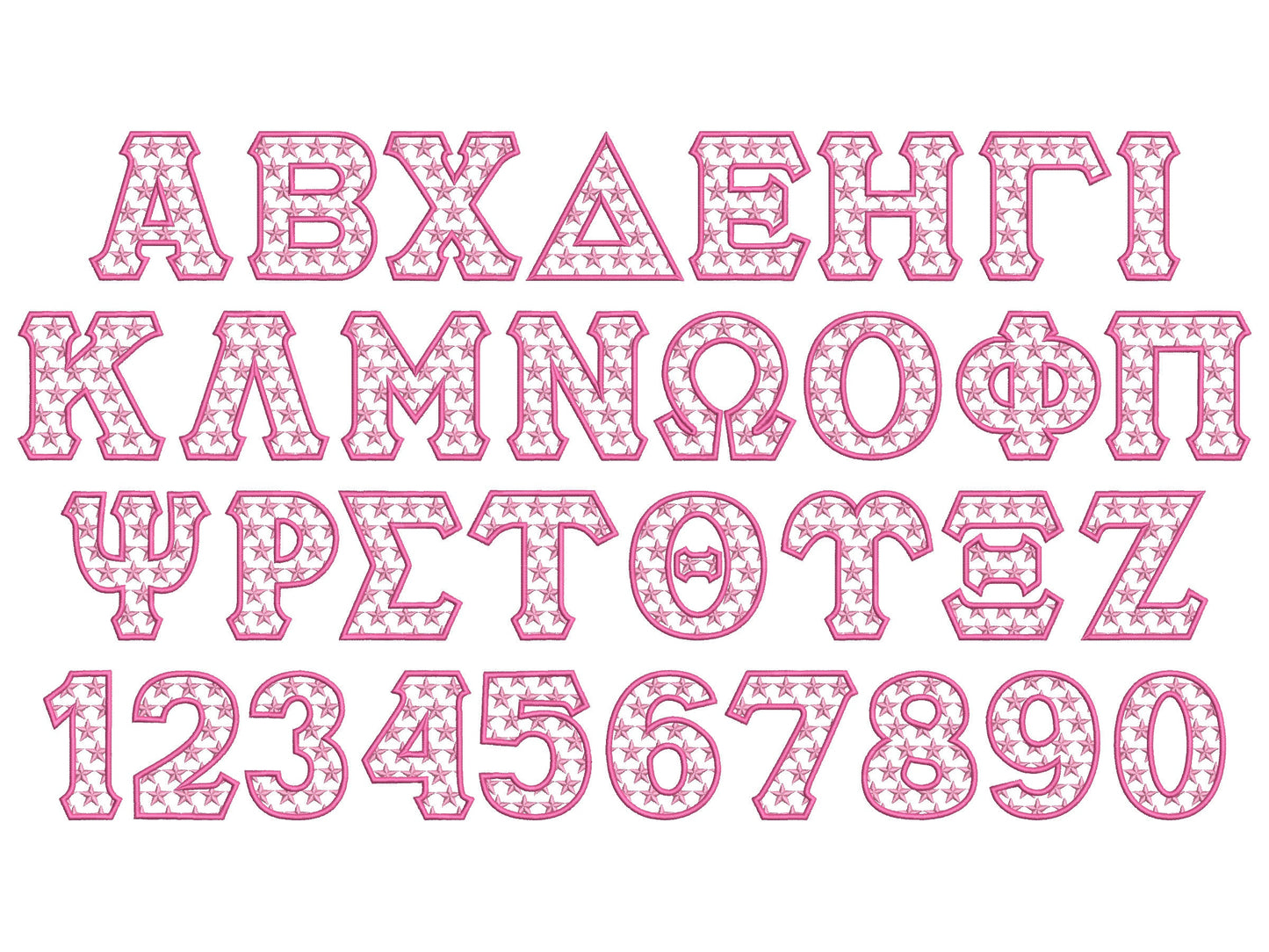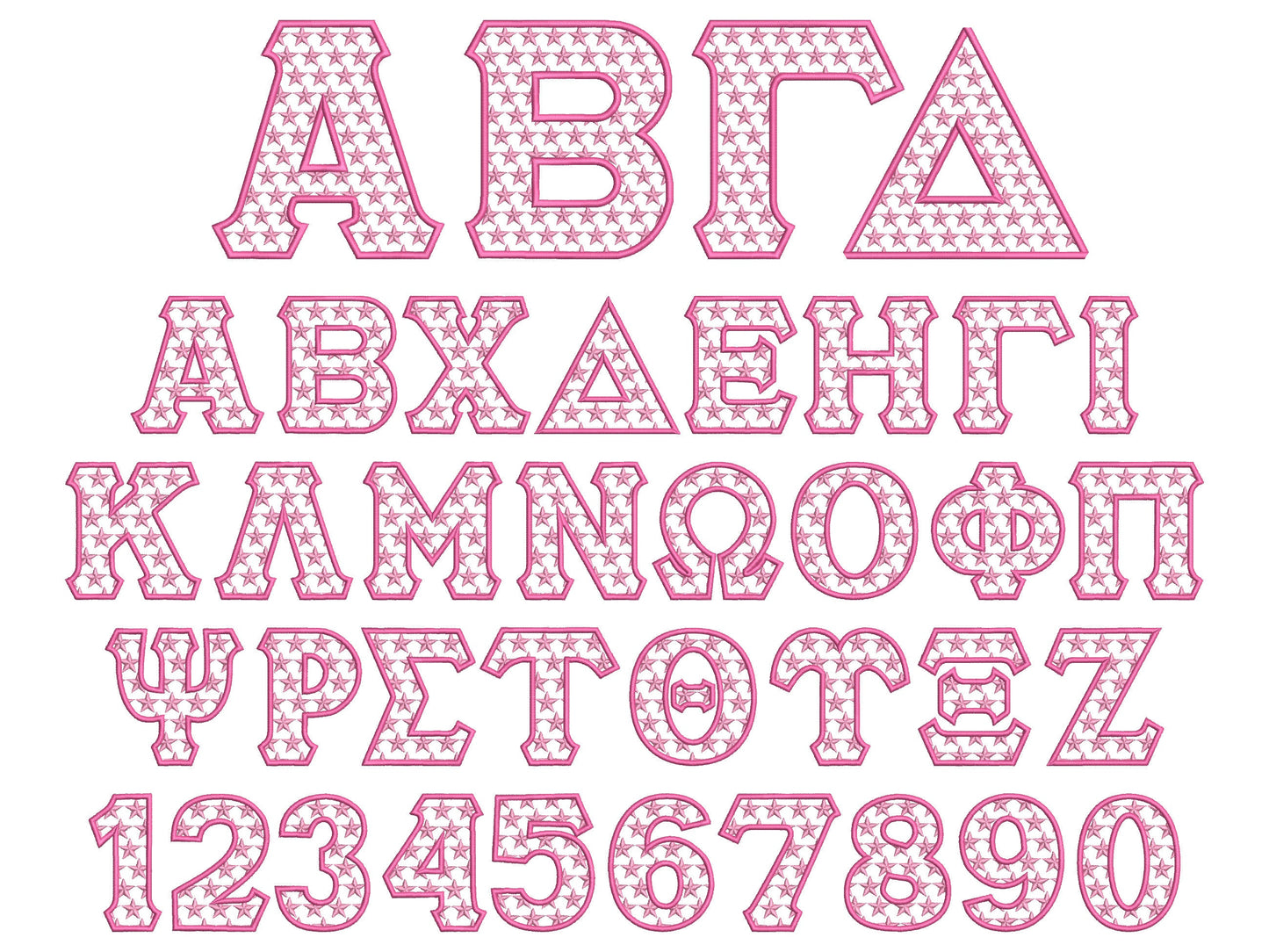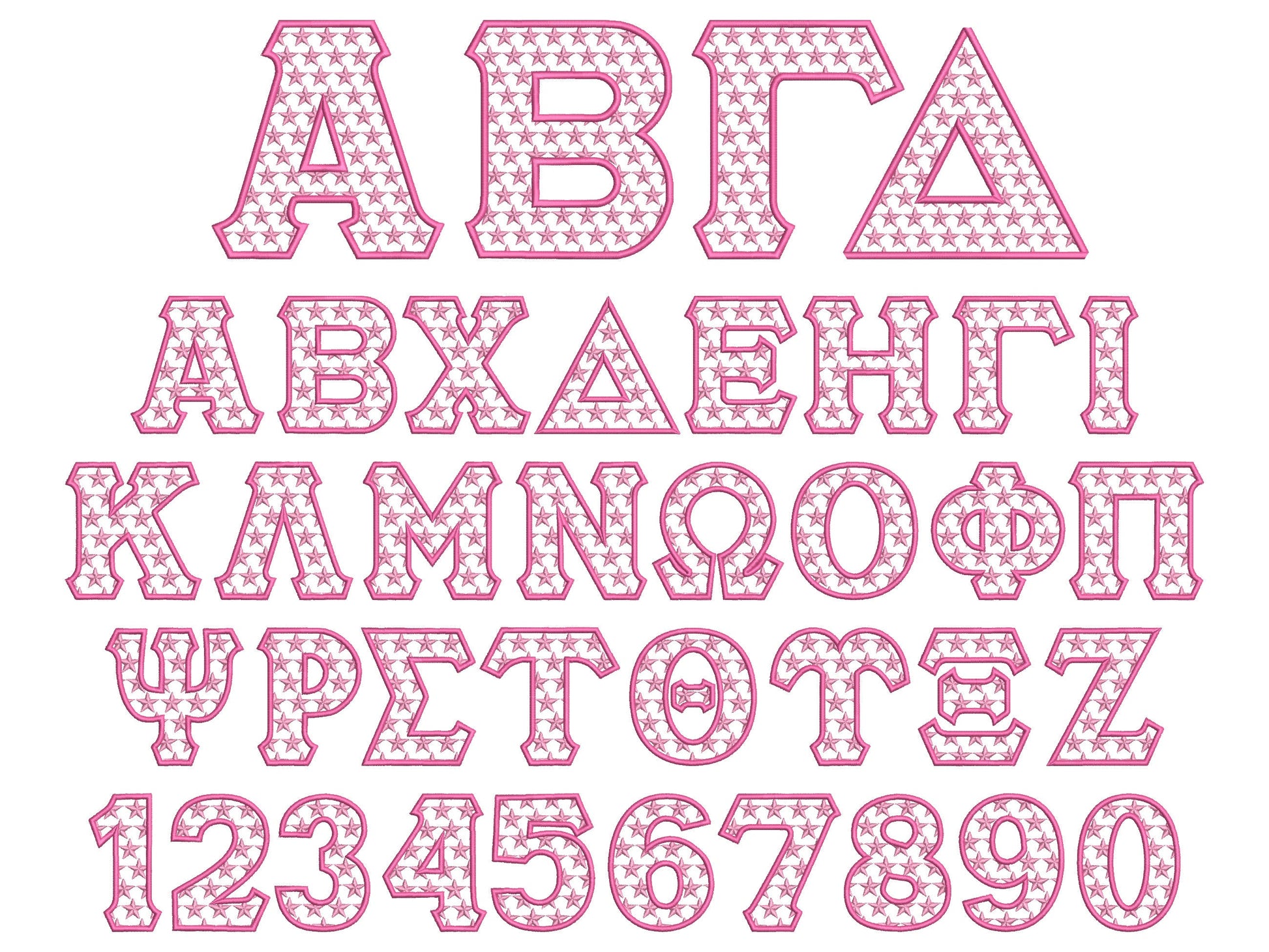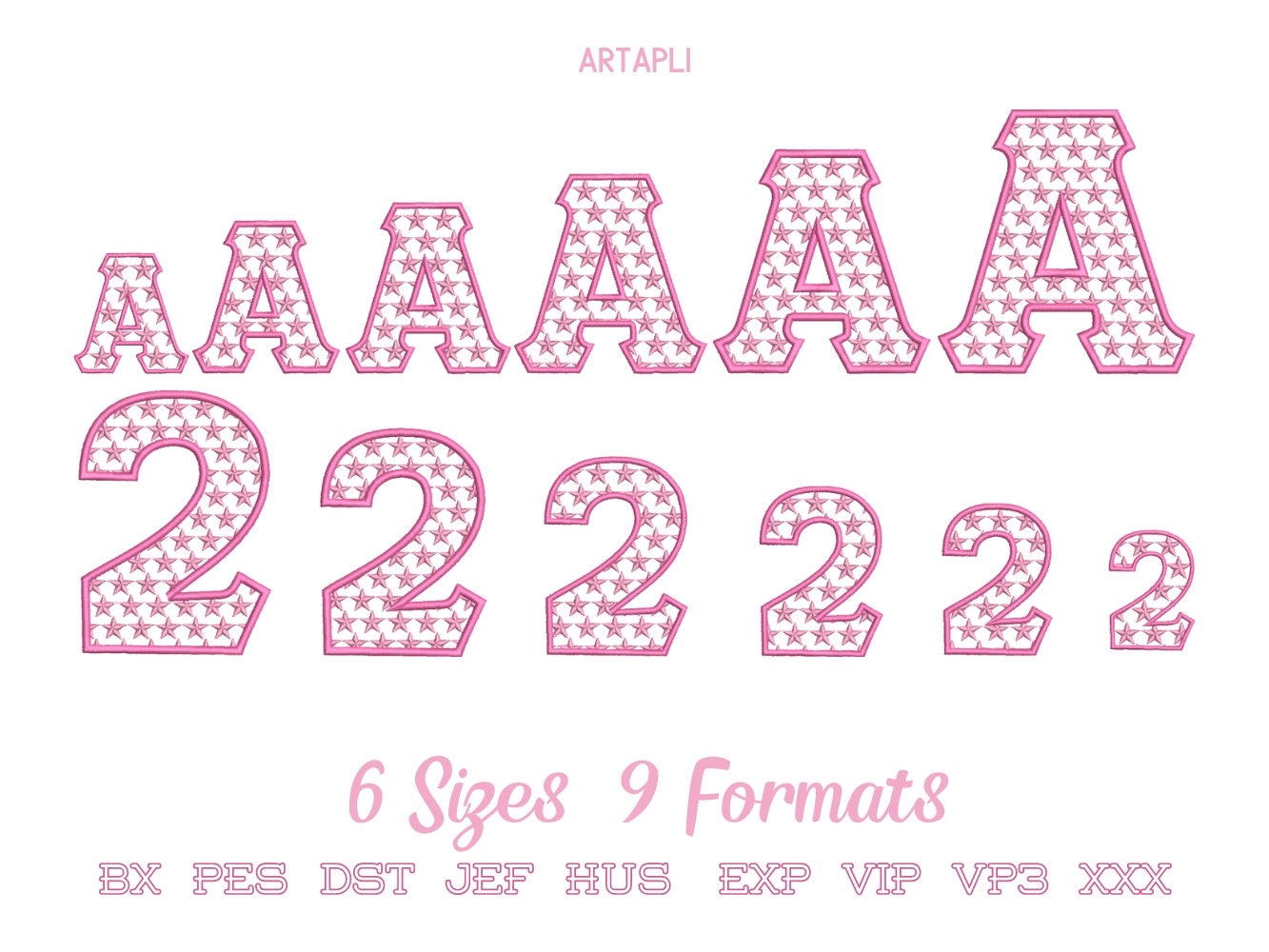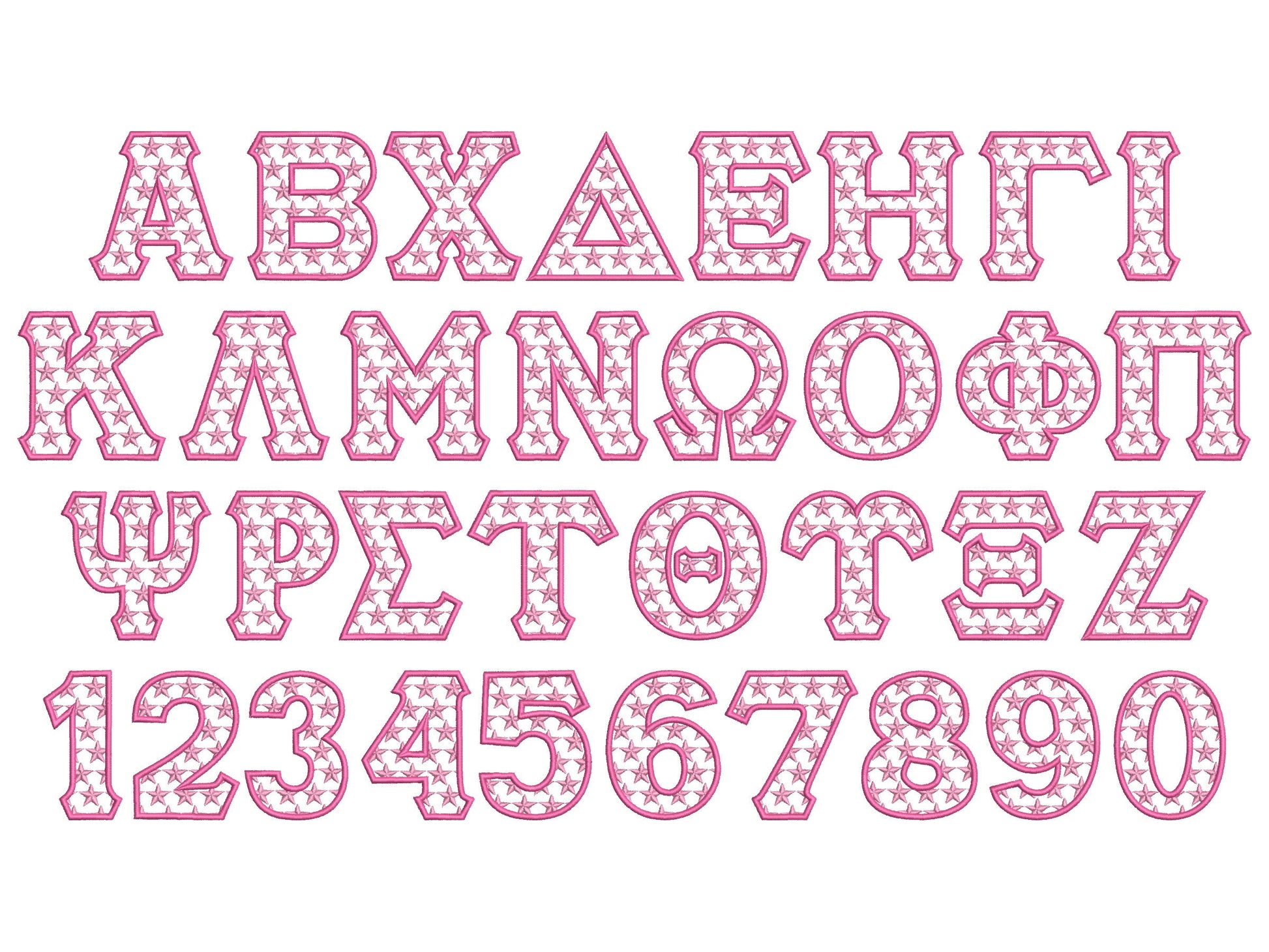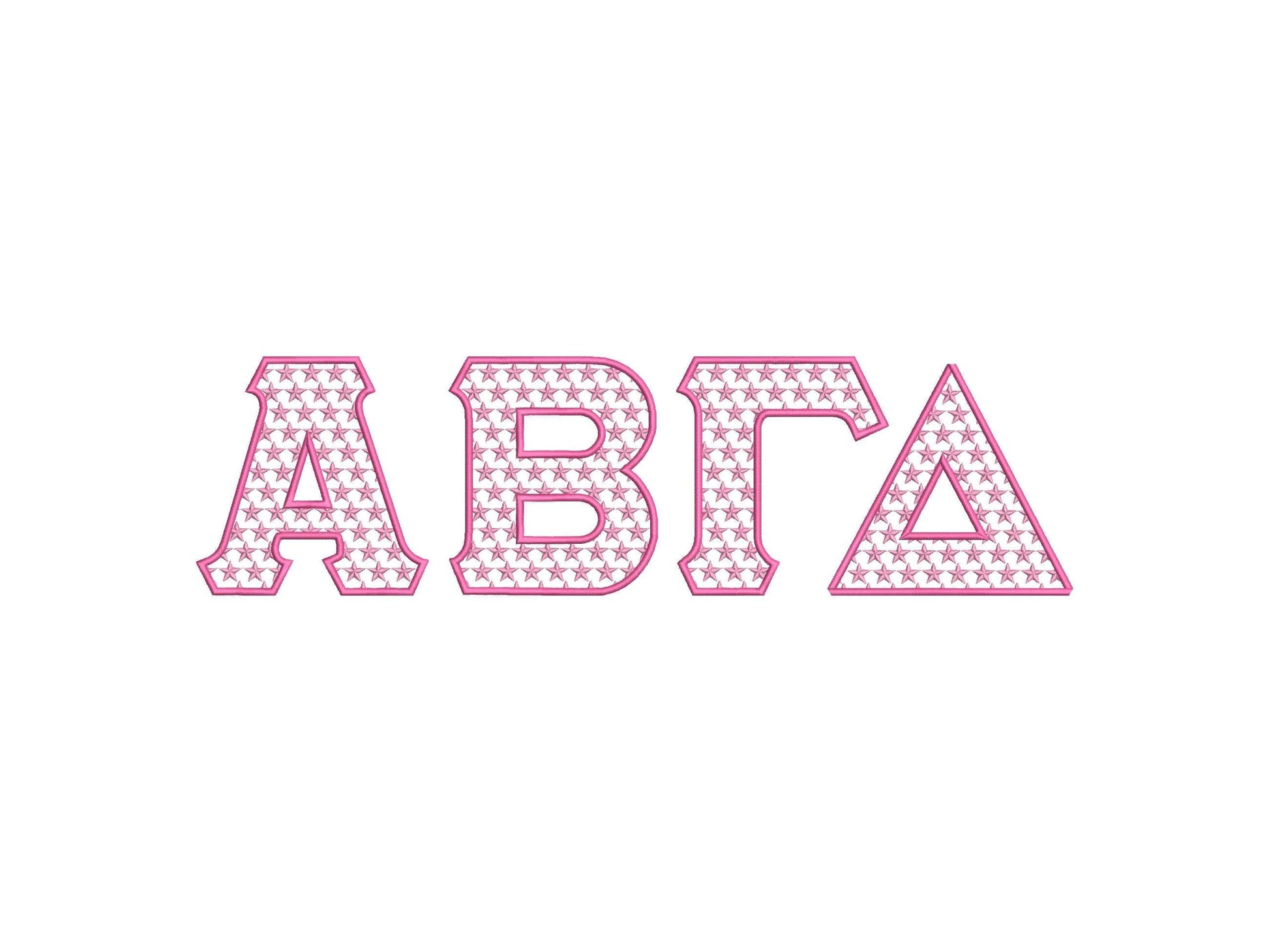
Or click to open the linkGreek letters filled with a light star pattern and an outline, in two colors. Made for sorority and fraternity shirts, jackets and bags.
All 24 Greek letters plus numbers 0 to 9, in six sizes: 2.5, 3, 3.5, 4, 4.5 and 5 inches. Light stitch where the fabric shows through the stars.